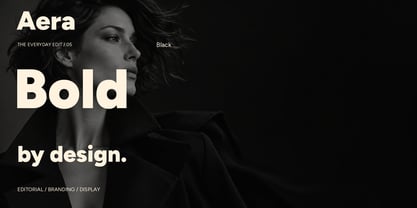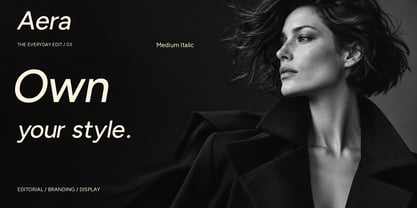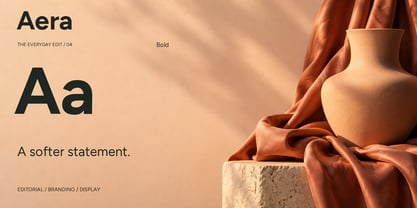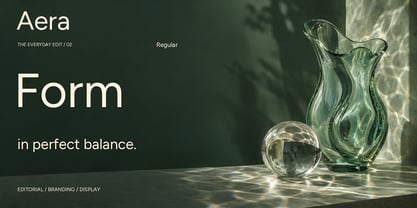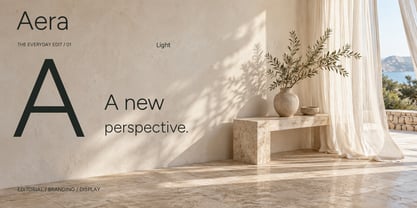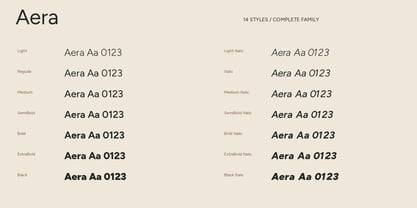
Aera
by MD-Type
The Aera Font Family was designed by Mehmet Dogan and published by MD-Type. Aera contains 14 styles and family package options. More about this family
Aera is a contemporary sans serif typeface family with open forms, clean lines and a confident editorial character. The family includes 14 styles, ranging from Light to Black with matching italics.
The lighter weights create an airy and refined rhythm for editorial layouts, captions and identity systems. Medium and heavier styles bring clarity and presence to headlines, posters, packaging and branding. Its balanced proportions make Aera suitable for both display use and everyday graphic design.
Aera is designed for magazines, visual identities, packaging, posters, advertising, digital interfaces and contemporary editorial compositions. Its wide range of weights allows designers to create consistent typographic systems across different sizes and applications.